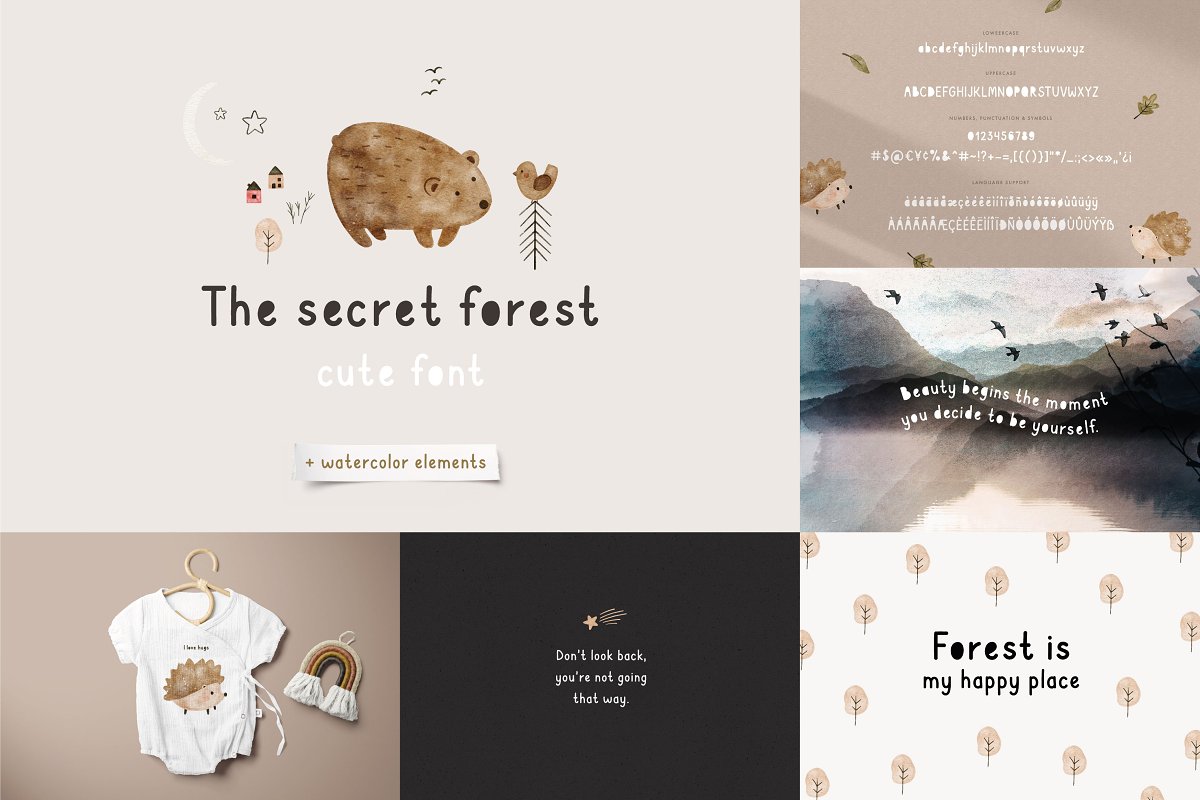
Kids BUNDLE Font Family Free Download
About the Kids BUNDLE Font
Kids font bundle – a set of 31 handwritten fonts including 16 font families and 1023 a fun graphic design elements, Hand drawn style provides an imperfect look, great to add a handmade touch to your projects, 87% off! $206 worth of fonts for only $26!You will get:Flower show | Font duo https://crmrkt, com/MVQDy3Little friends | Hand drawn font https://crmrkt